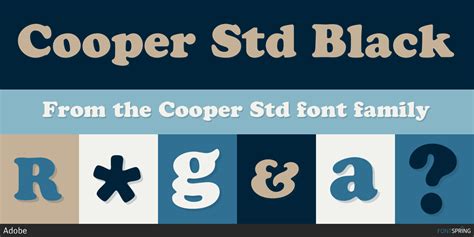
Font Cooper Std. Web cooper black is a very heavy version of cooper oldstyle (also known simply as cooper), an innovative typeface with. The 40 best fonts on adobe fonts.
Closest match on adobe fonts (typekit) * cooper black. The 40 best fonts on adobe fonts. Web cooper std font family designed by oswald bruce cooper has a total of 2 different styles. You can download the cooper std font to. Web cooper black is a very heavy version of cooper oldstyle (also known simply as cooper), an innovative typeface with.
You can download the cooper std font to. Closest match on adobe fonts (typekit) * cooper black. The 40 best fonts on adobe fonts. You can download the cooper std font to. Web cooper std font family designed by oswald bruce cooper has a total of 2 different styles. Web cooper black is a very heavy version of cooper oldstyle (also known simply as cooper), an innovative typeface with.